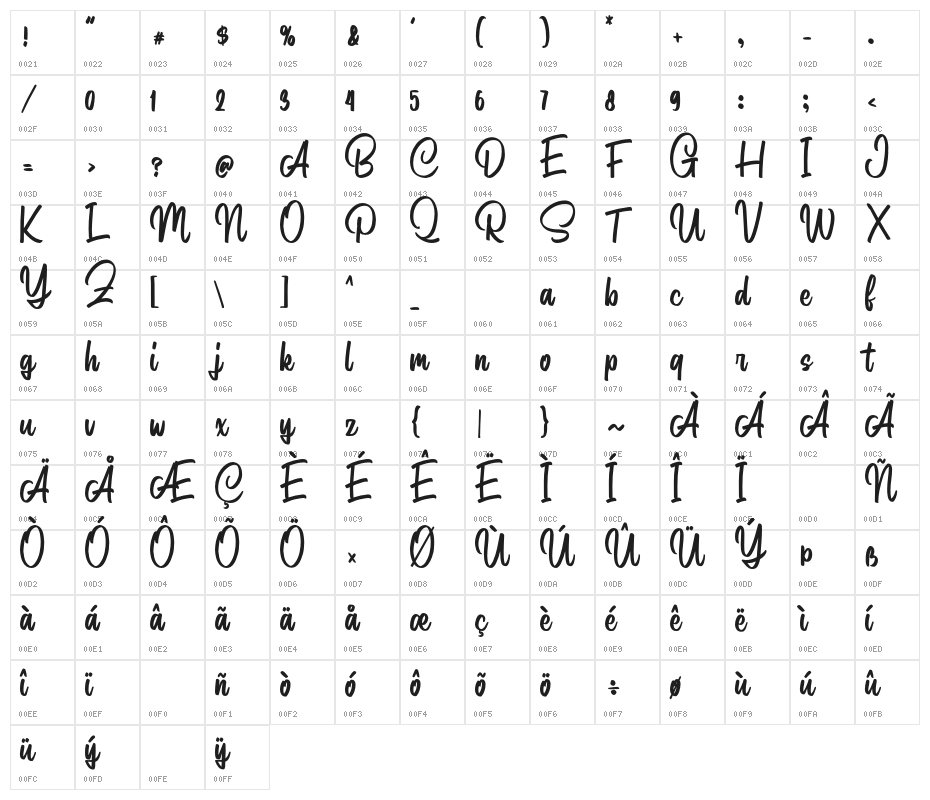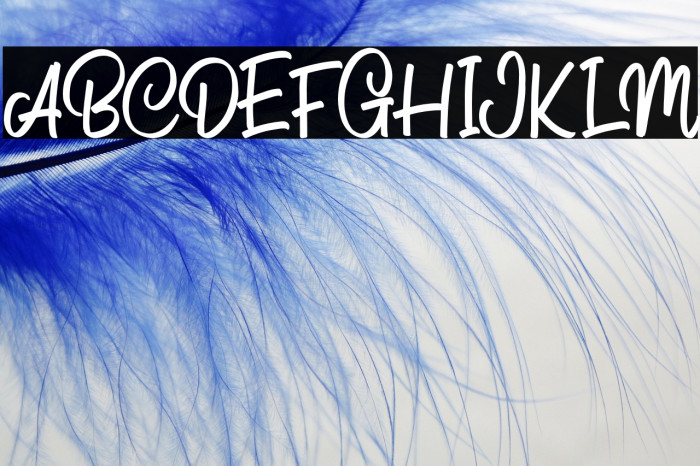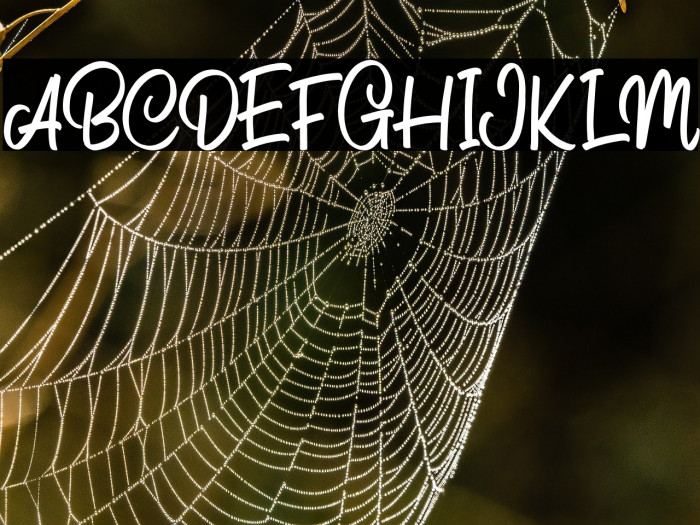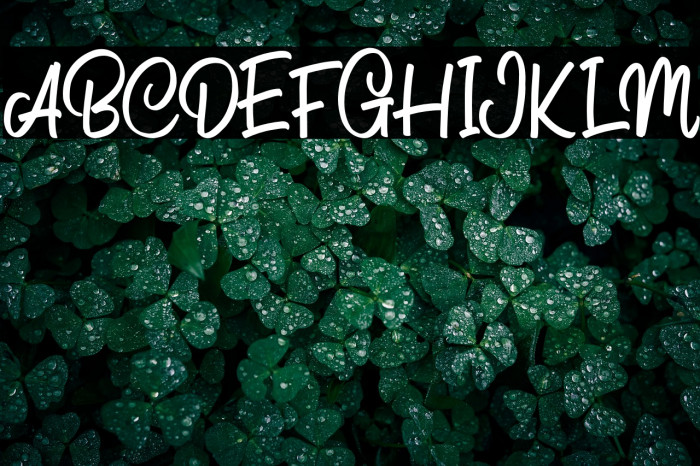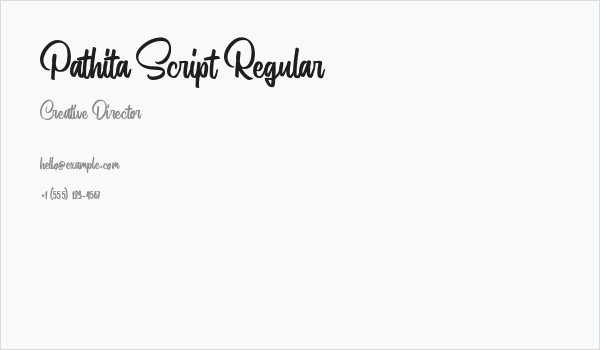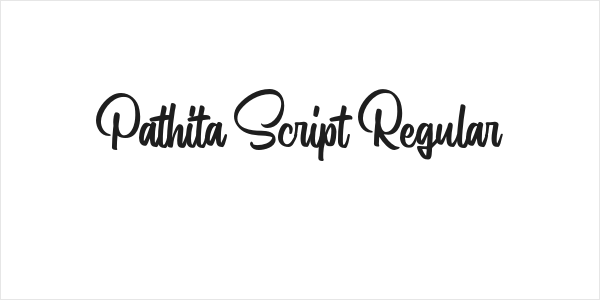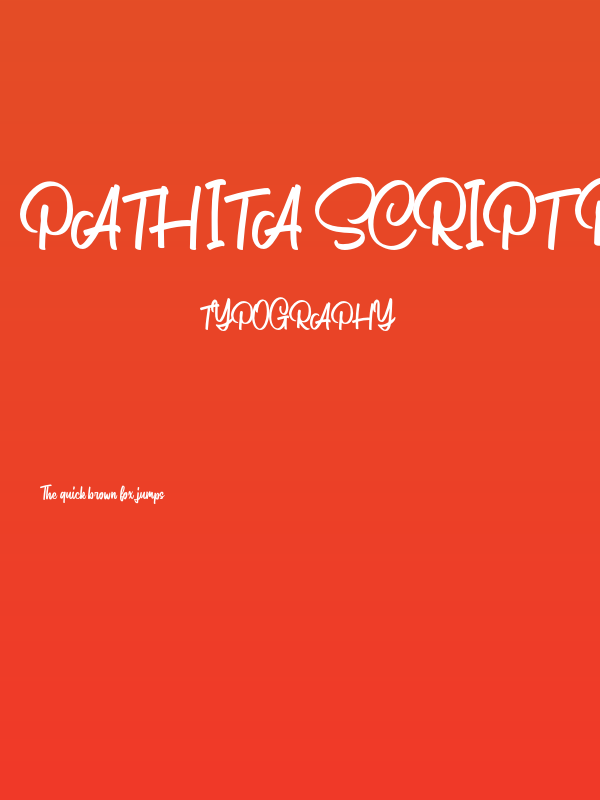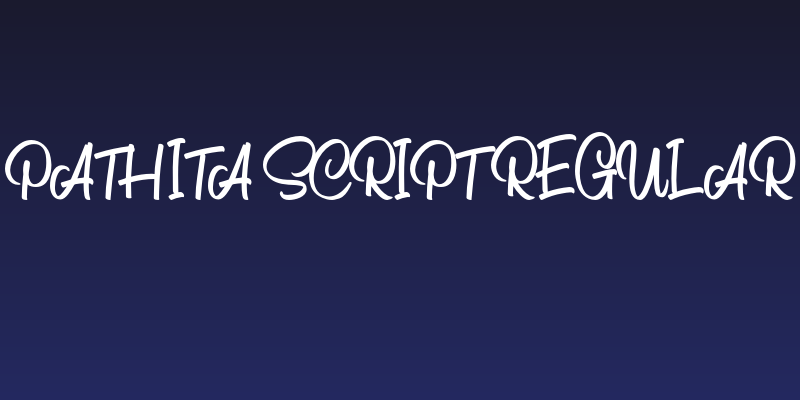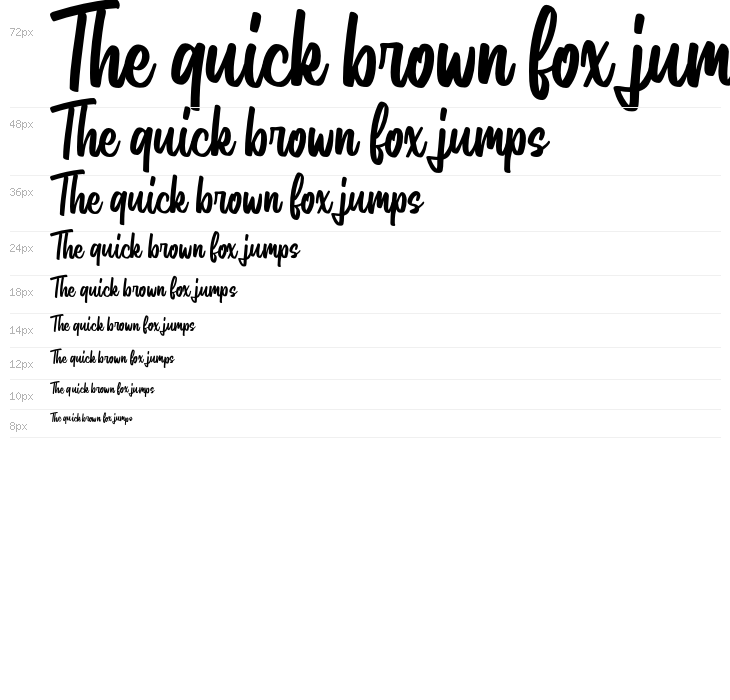
Pathita Script Regular Font
Pathita Script Regular Description
This font features a lively and flowing script style, characterized by its smooth, connected strokes and playful curves. The uppercase letters are elegant and slightly elongated, while the lowercase letters maintain a consistent flow, creating a harmonious and cohesive appearance. The numerals and special characters are designed to match the overall aesthetic, with a touch of whimsy that adds to the font's charm. This script font is perfect for projects that require a personal and inviting touch, such as invitations, greeting cards, or branding materials.
| Proposed Projects | Ideal for invitations, greeting cards, branding materials, and any project needing a personal touch. |